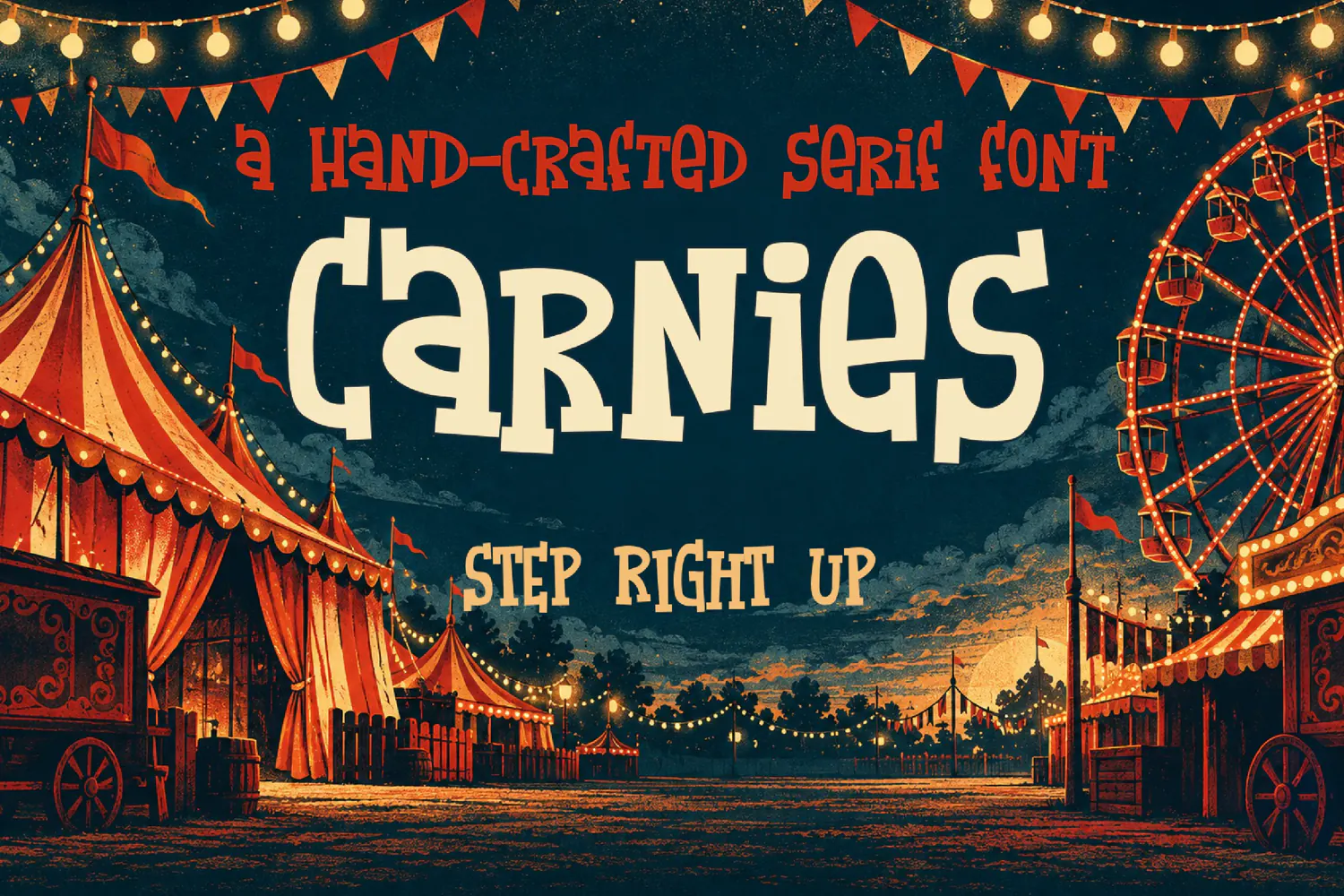
Carnies Playful Circus Display Font
Carnies brings the lively feel of a midway to your lettering. Its bold, uneven letter shapes suit carnival posters, circus invitations, fair signs, party decorations, and attention-grabbing headlines.